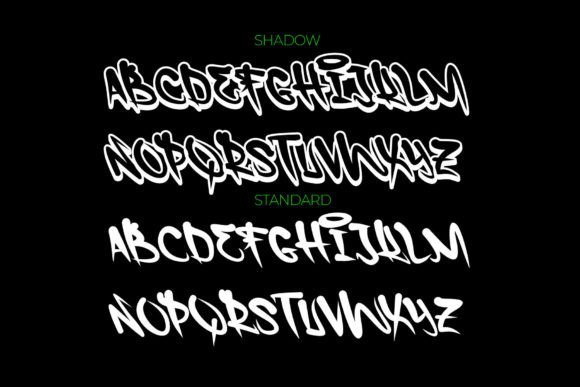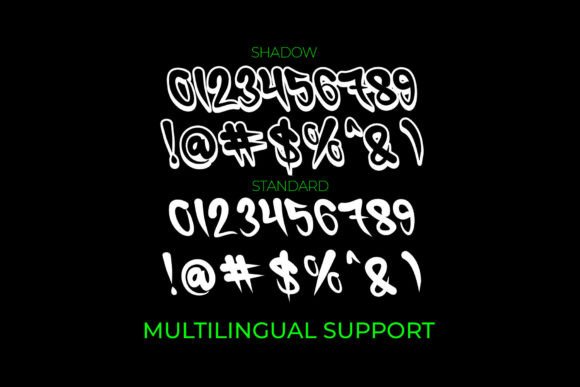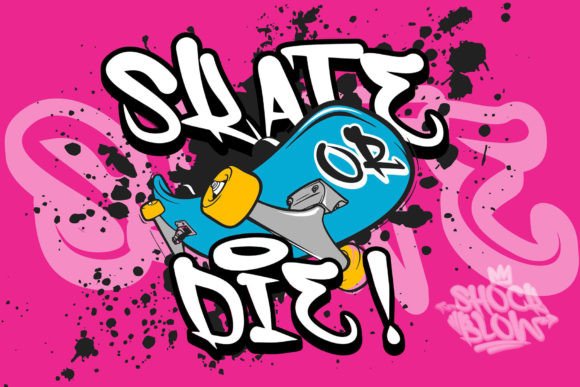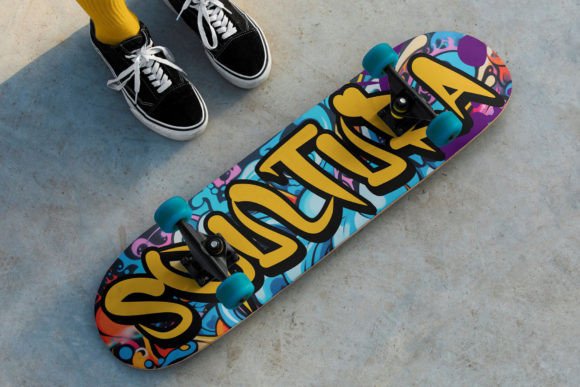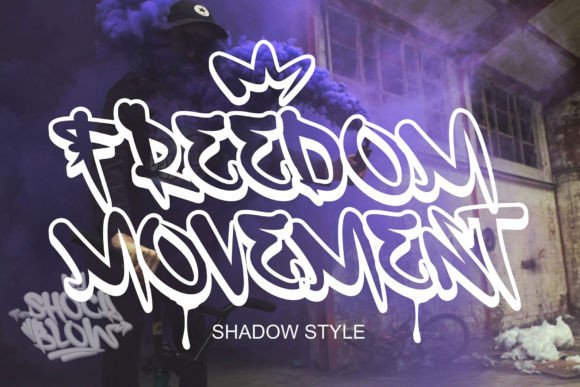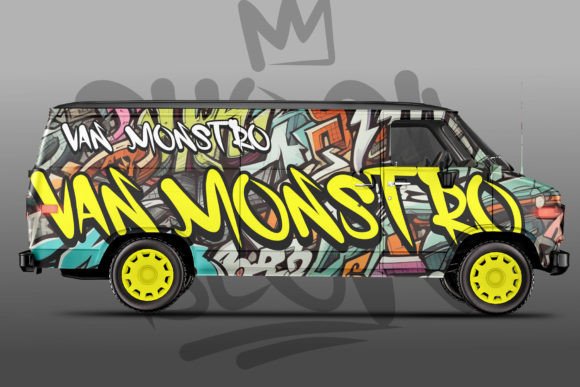
Introduction to Shock Blow Font
Shock Block is a graffiti font featuring swash characters and two distinct style variations: solid and shadow.
Graffiti fonts are known for their bold and expressive letterforms, often characterized by dynamic strokes and urban-inspired designs The addition of swash characters introduces decorative elements or flourishes, enhancing the fontโs artistic appeal.
Key Features of Shock Blow Font